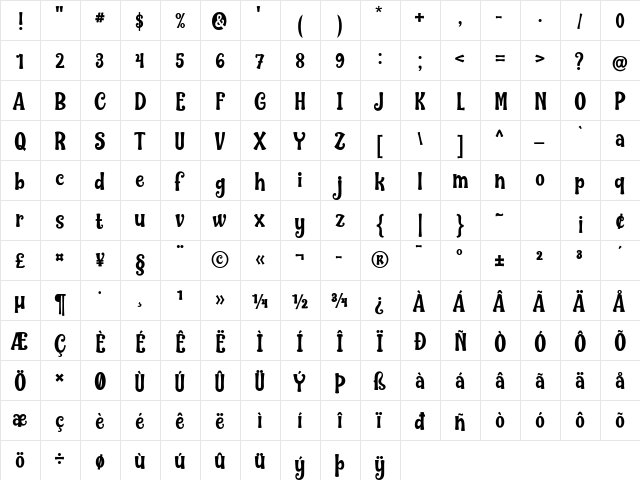
Nilky & Miky Regular
| Foundry | 7NTypes |
| Designer | Keithzo; Situjuh Nazara |
Design Context for Nilky & Miky Typeface
Nilky & Miky is a composed and adaptable typeface that performs quietly and consistently across a wide range of design contexts.